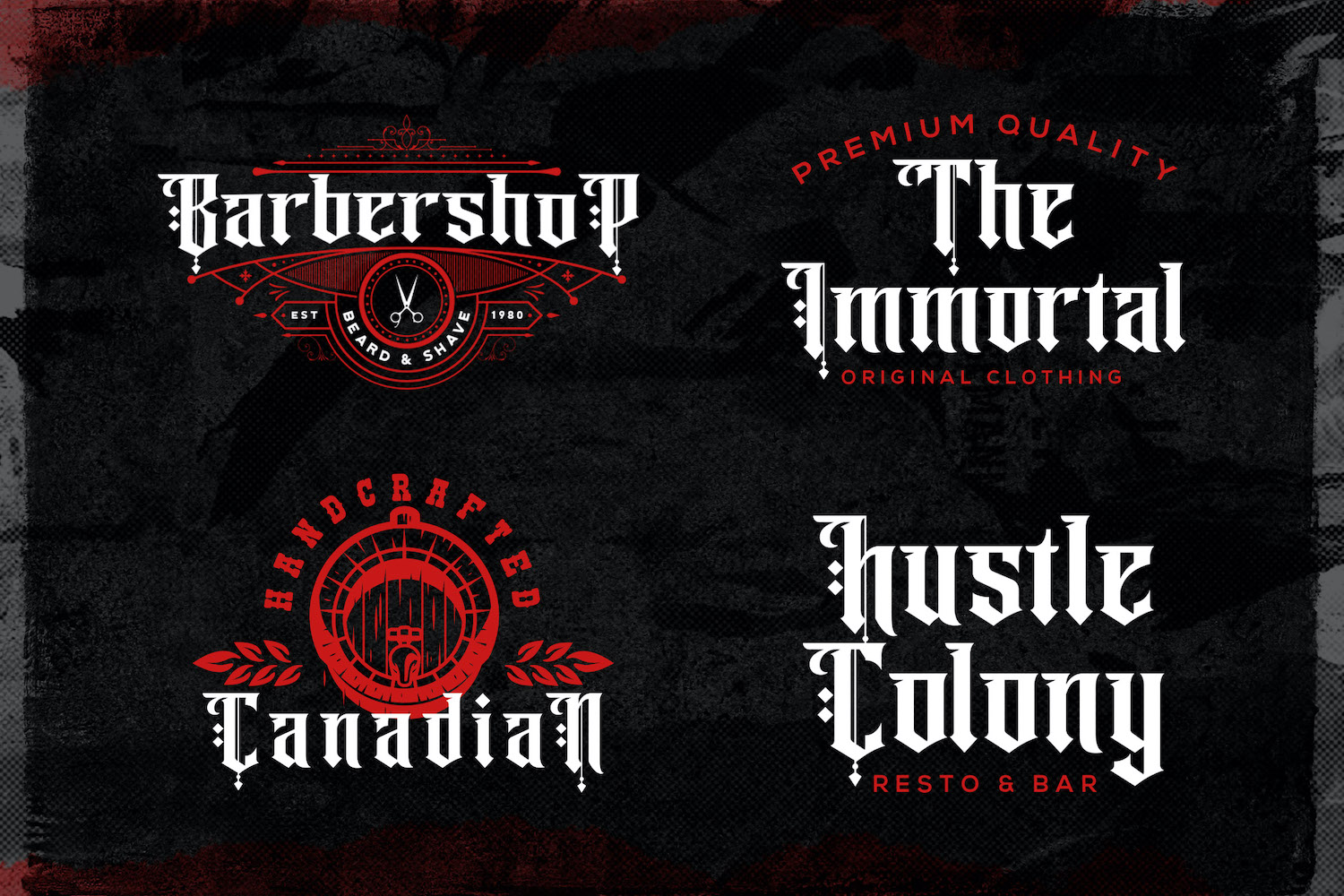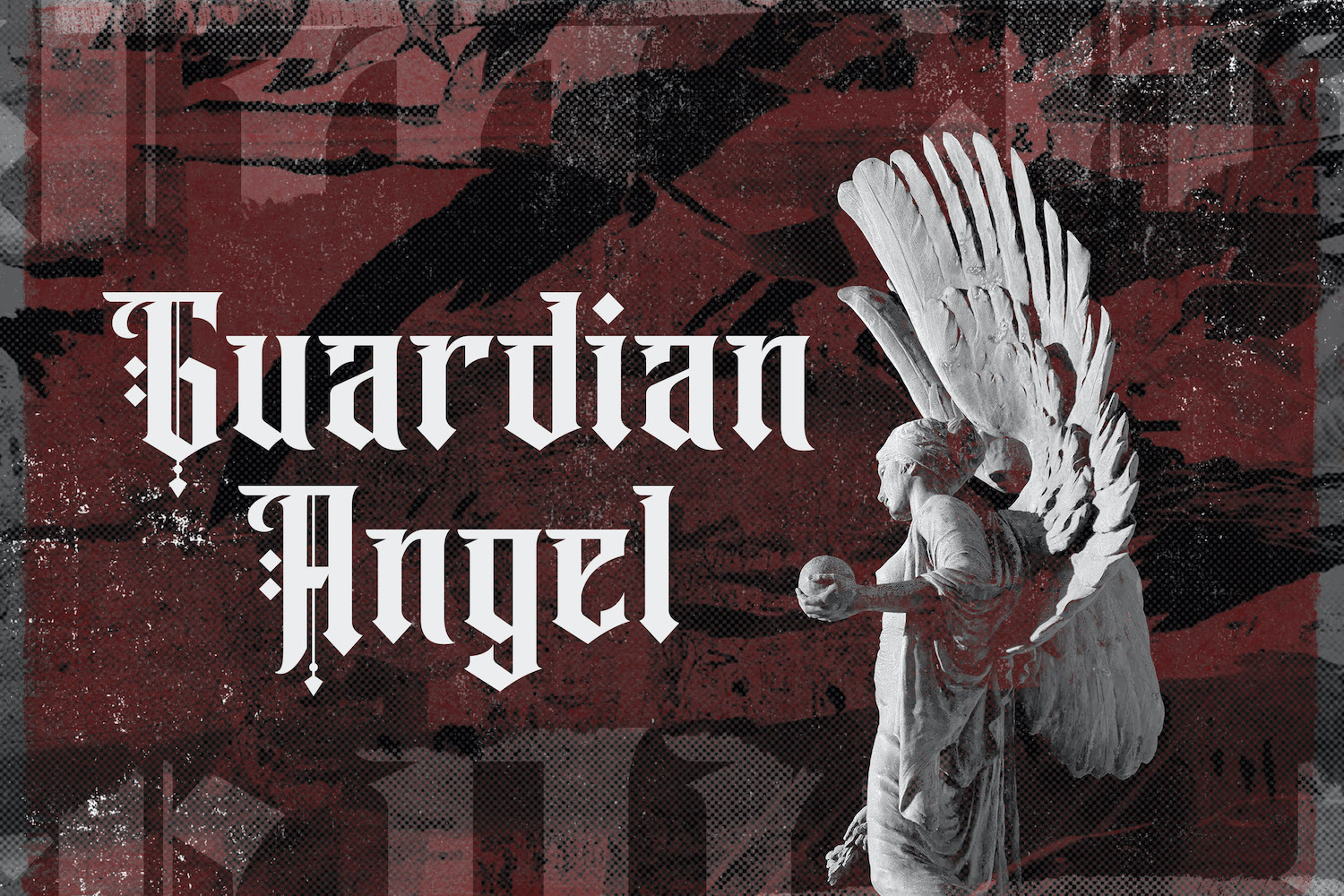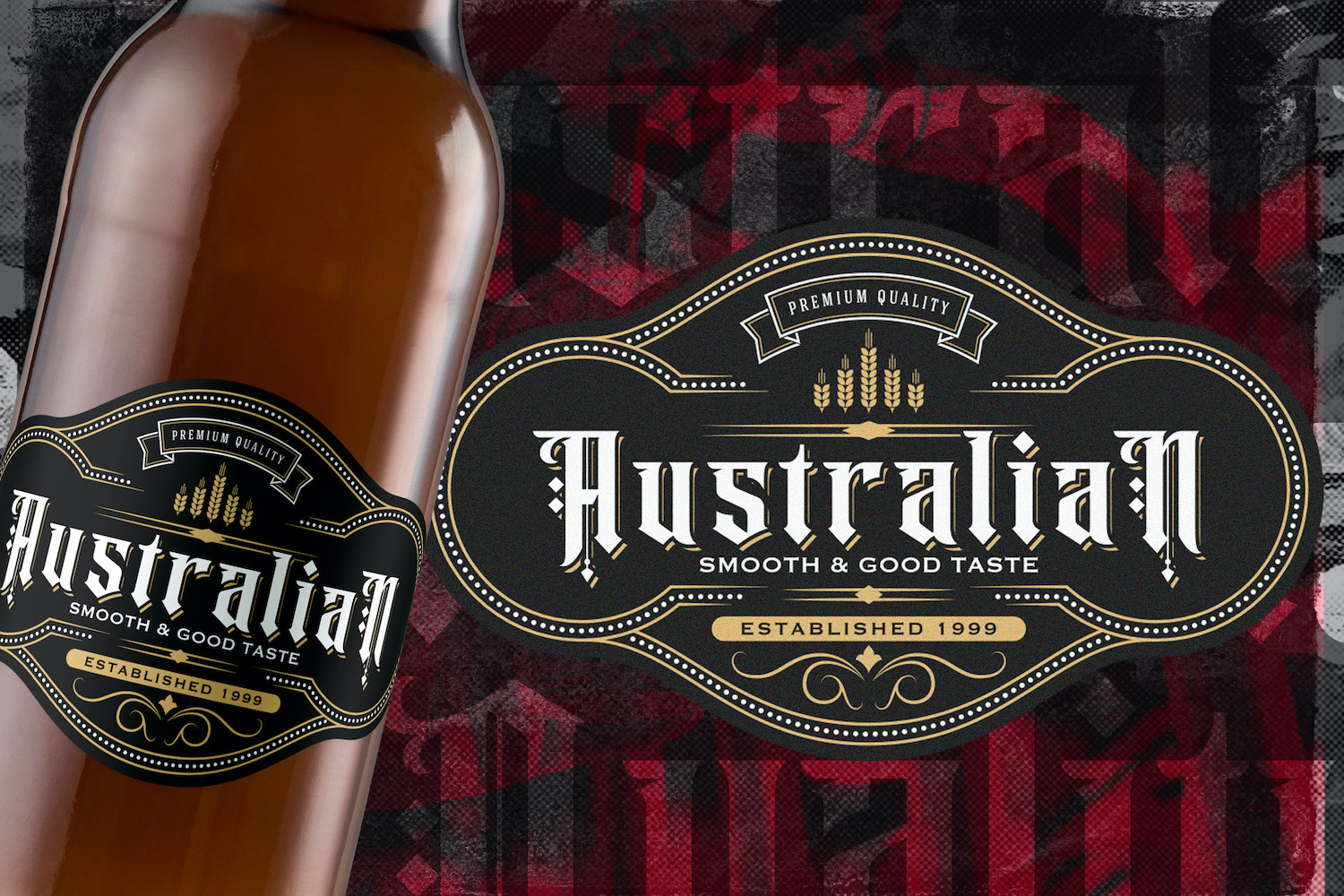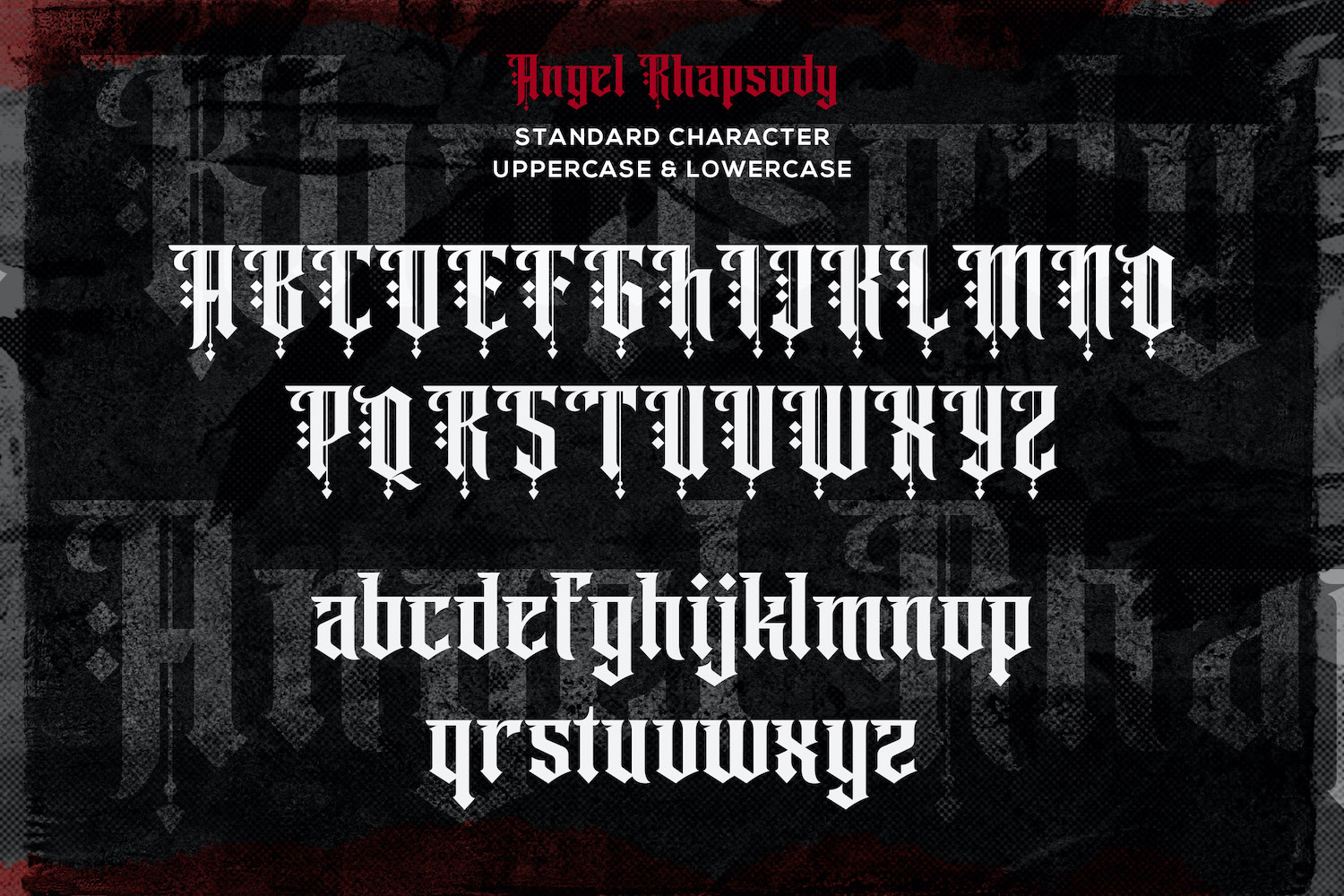
Angel Rhapsody Font is an incredibly authentic blackletter, gothic, and victorian font. Add this font to your favorite creative ideas and notice how it makes them stand out!
– Alternates
– Ligatures
– Uppercase and Lowercase letters
– Numbering and Punctuations
– Multilingual Support